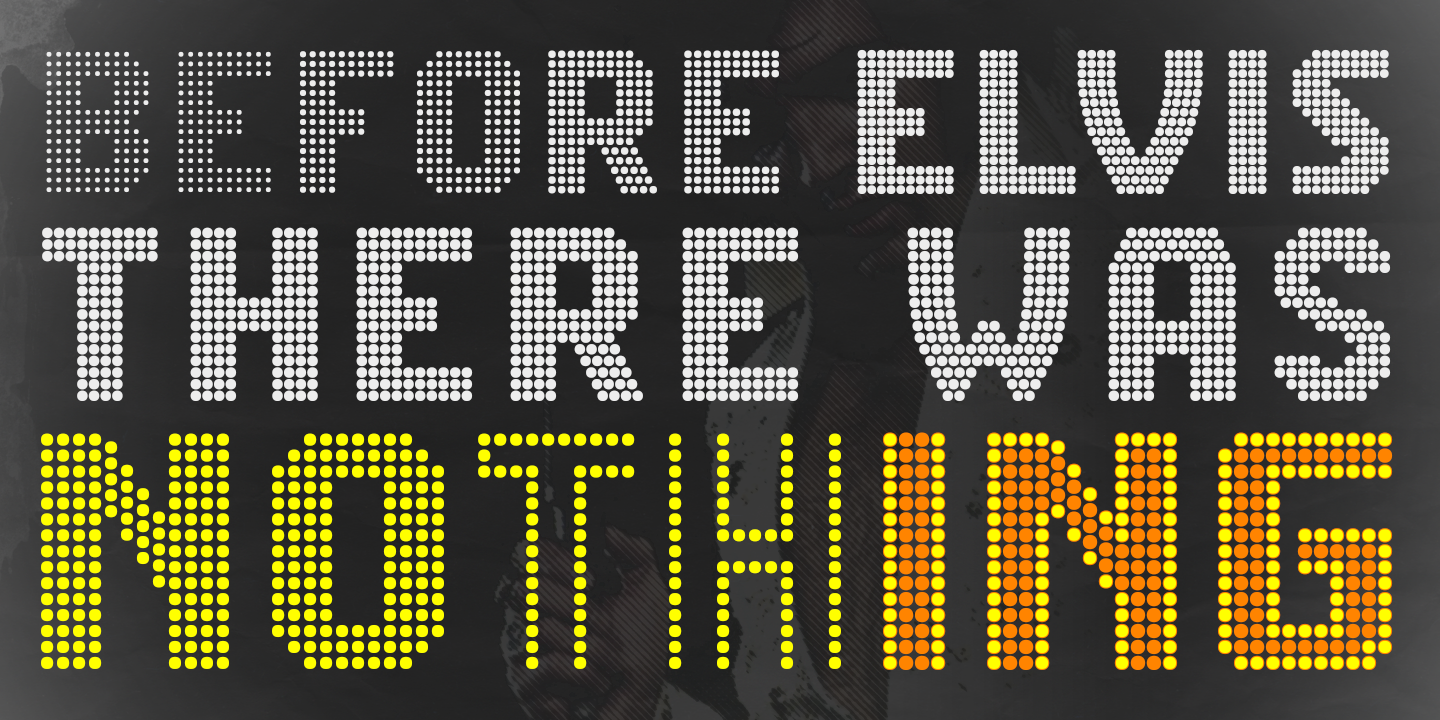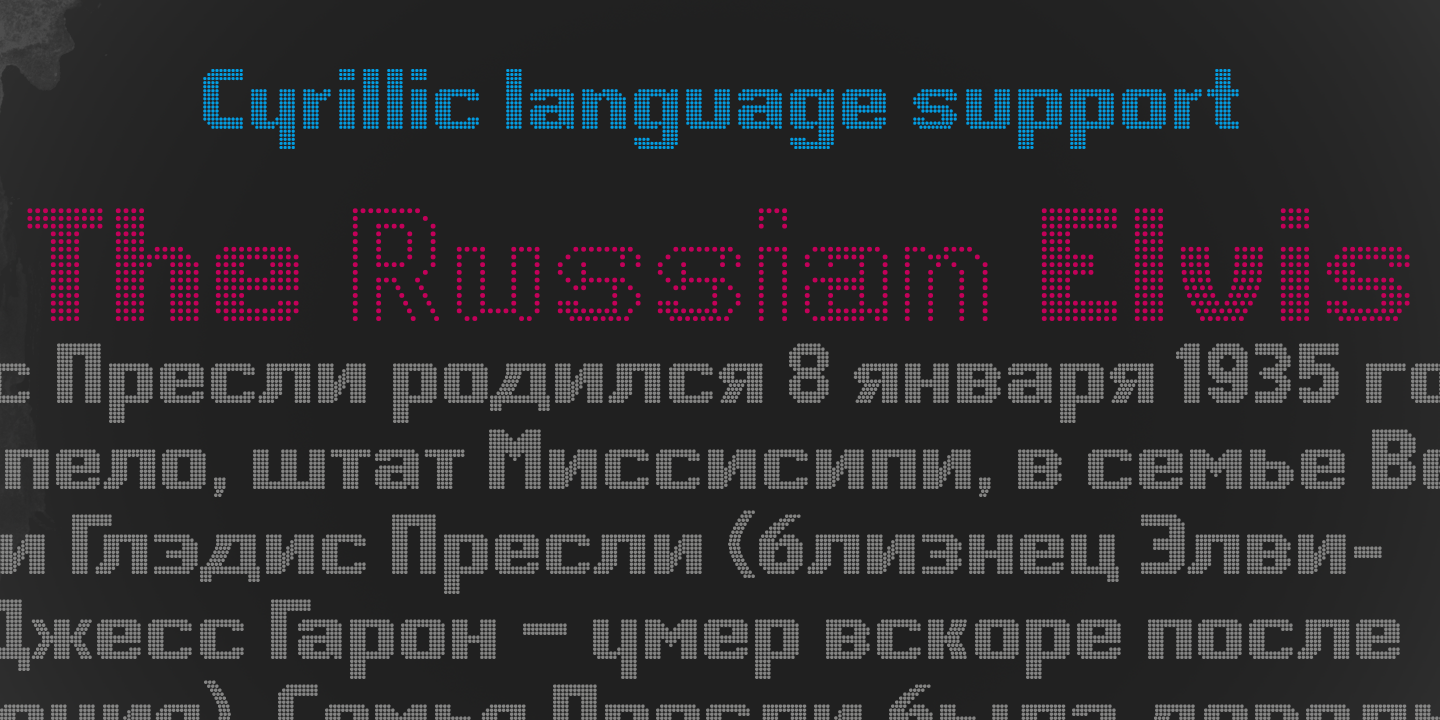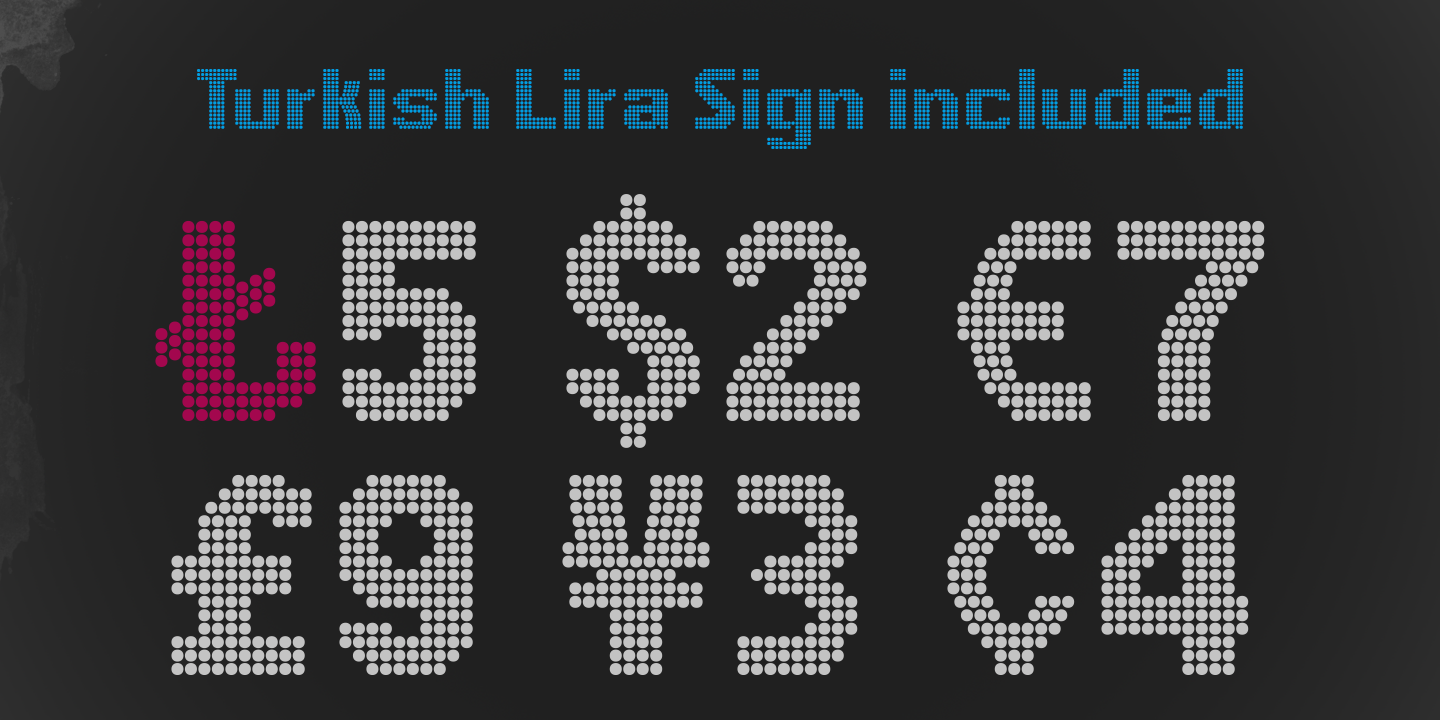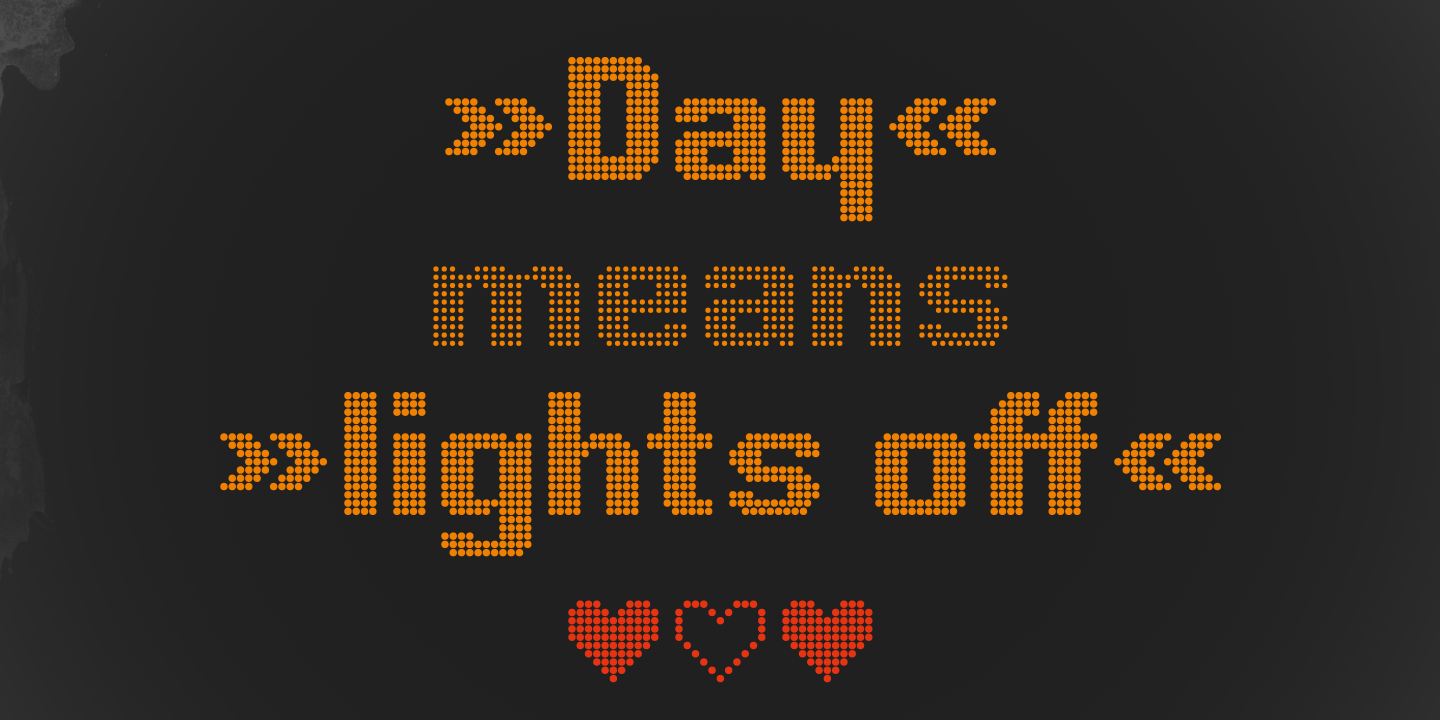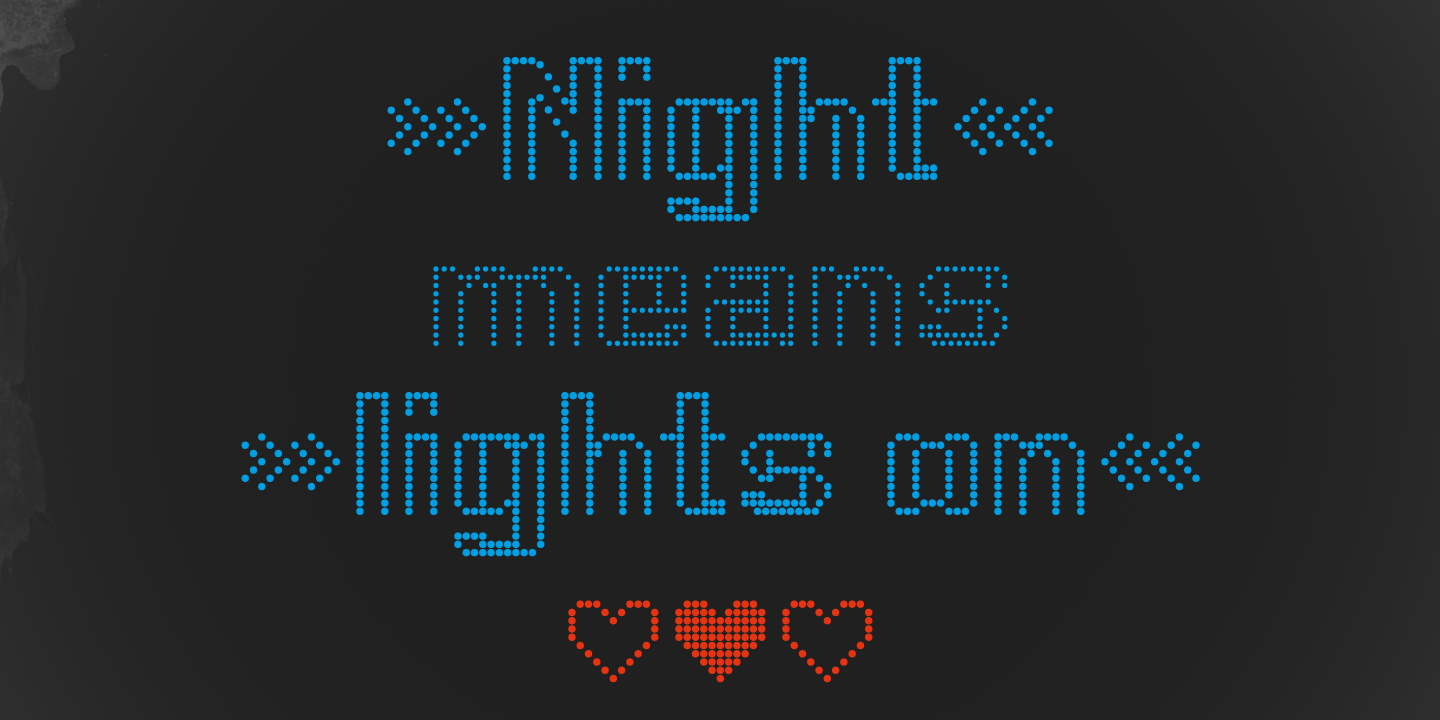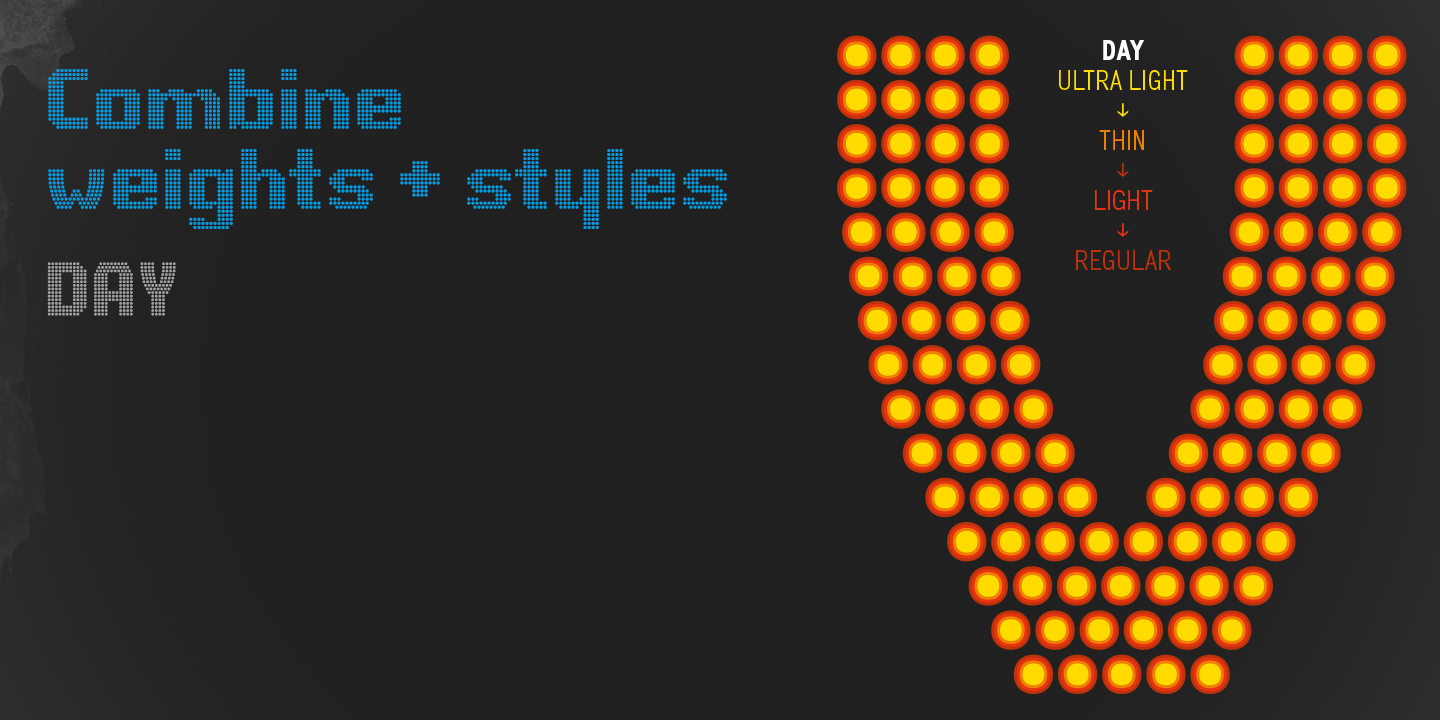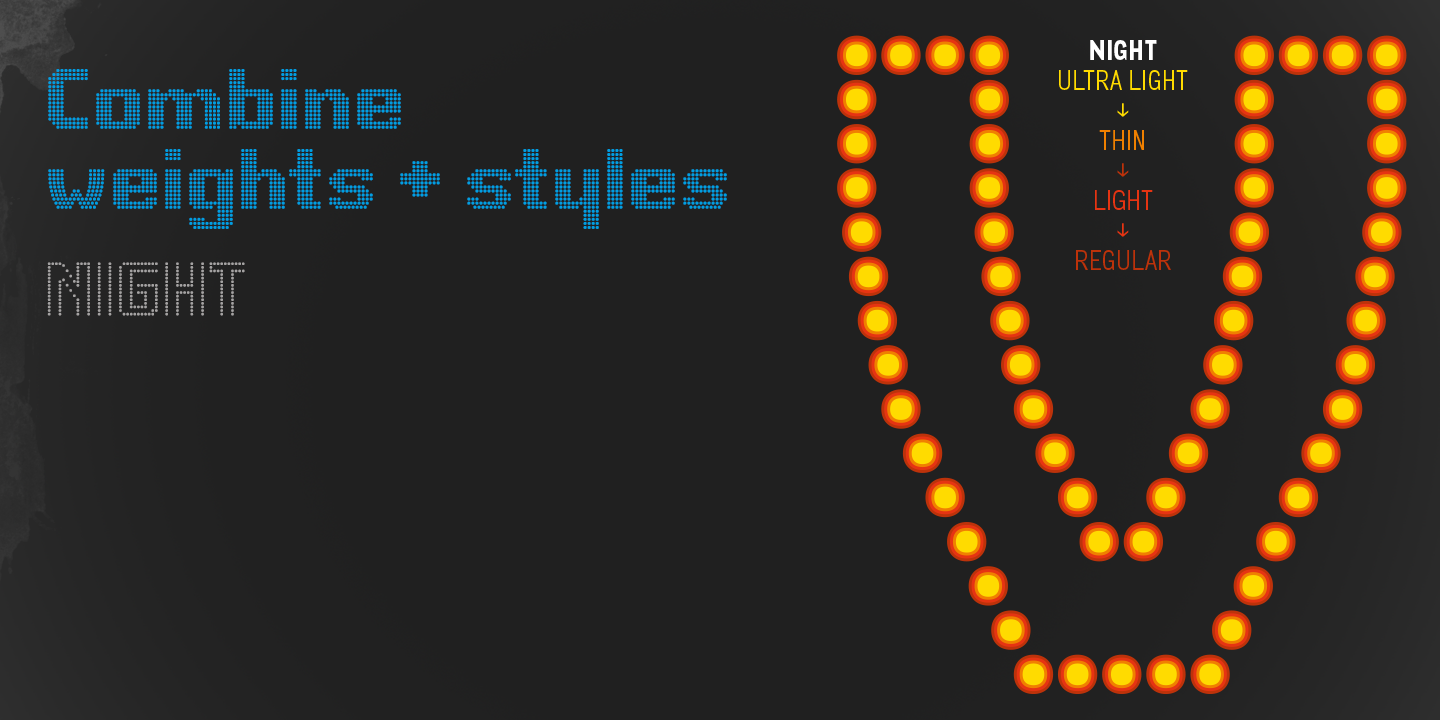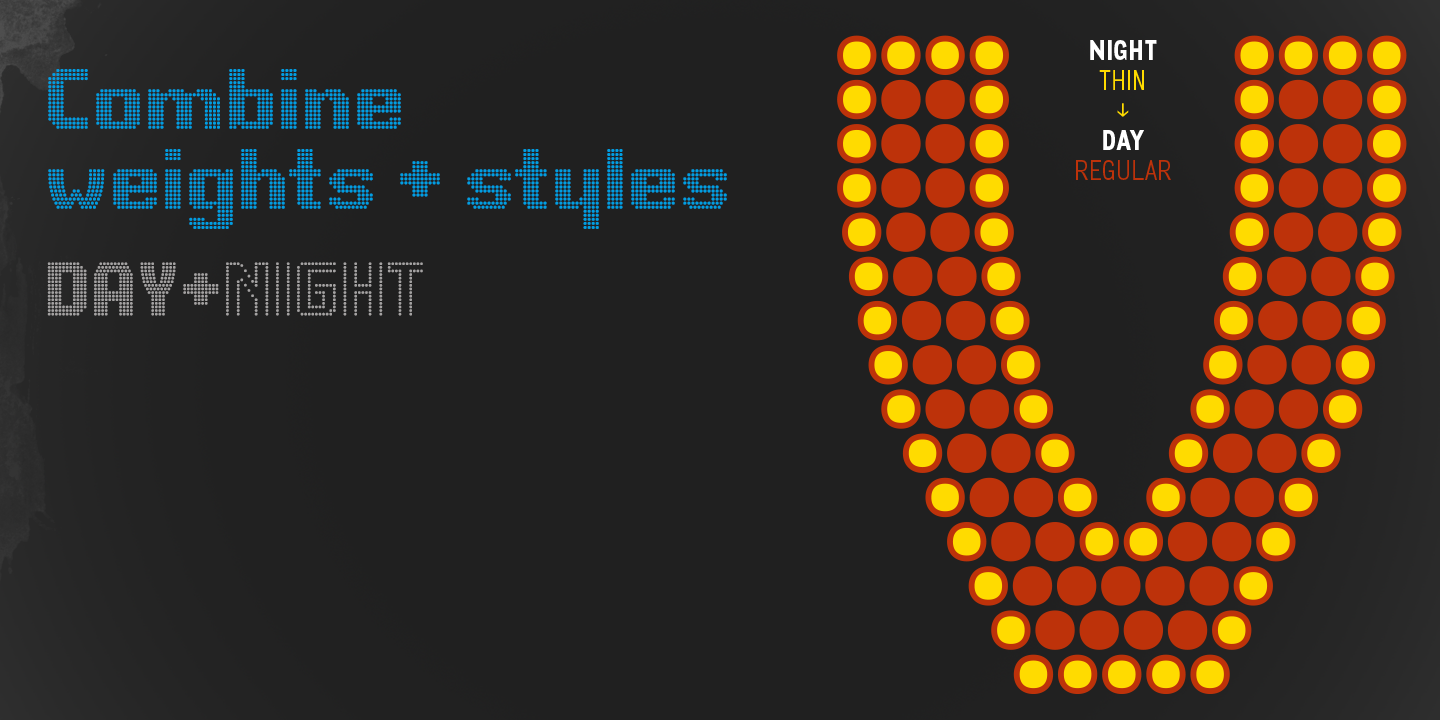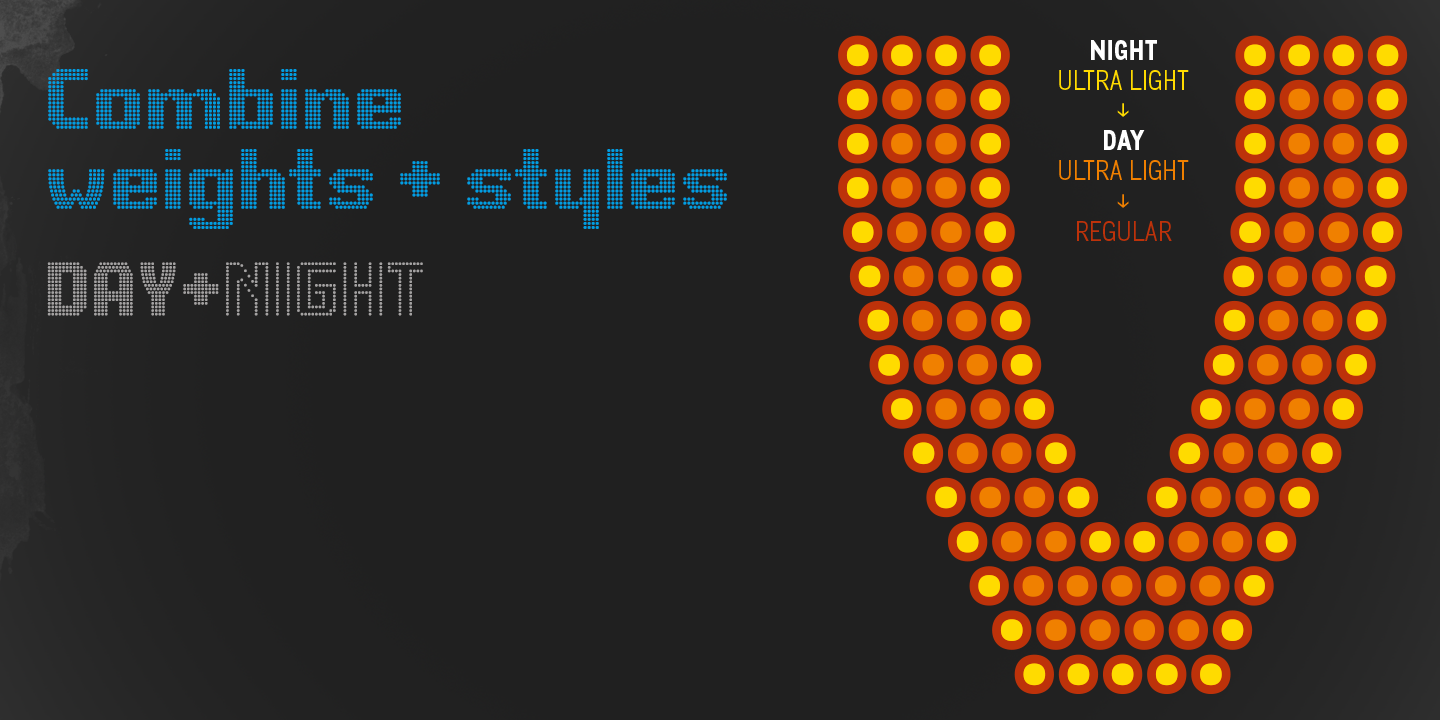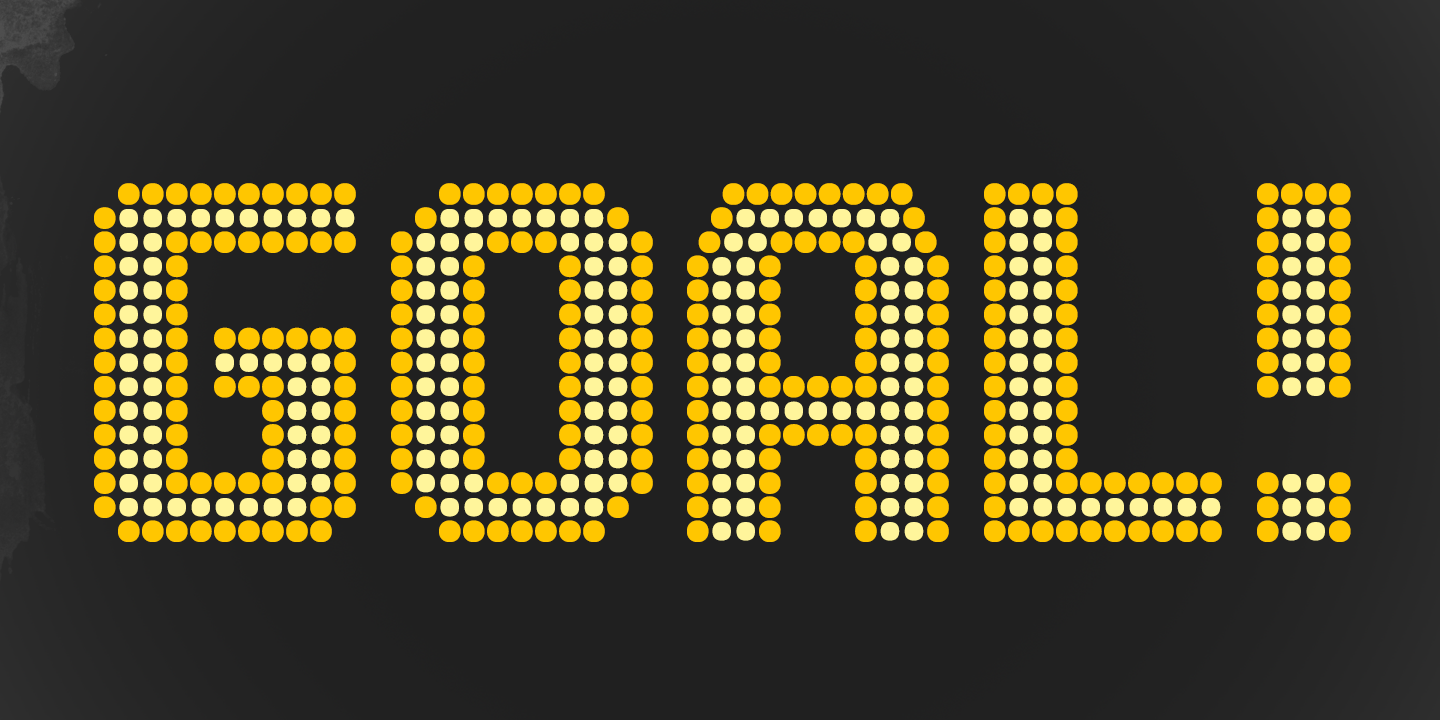
CA Viva Las Vegas is a light bulb font inspired by the concert hall signage of 1970s Las Vegas – the kind you'd see outside a concert hall on the Vegas strip in the 1970s, during the golden age of its legendary residencies.
It comes in two styles (NIGHT and DAY) and five weights (Ultra Light, Thin, Light, Regular, and Bold), built on a layered system. Stack the styles and mix colors, and you've got a huge range of combinations to play with.
CA Viva Las Vegas works best at large sizes.